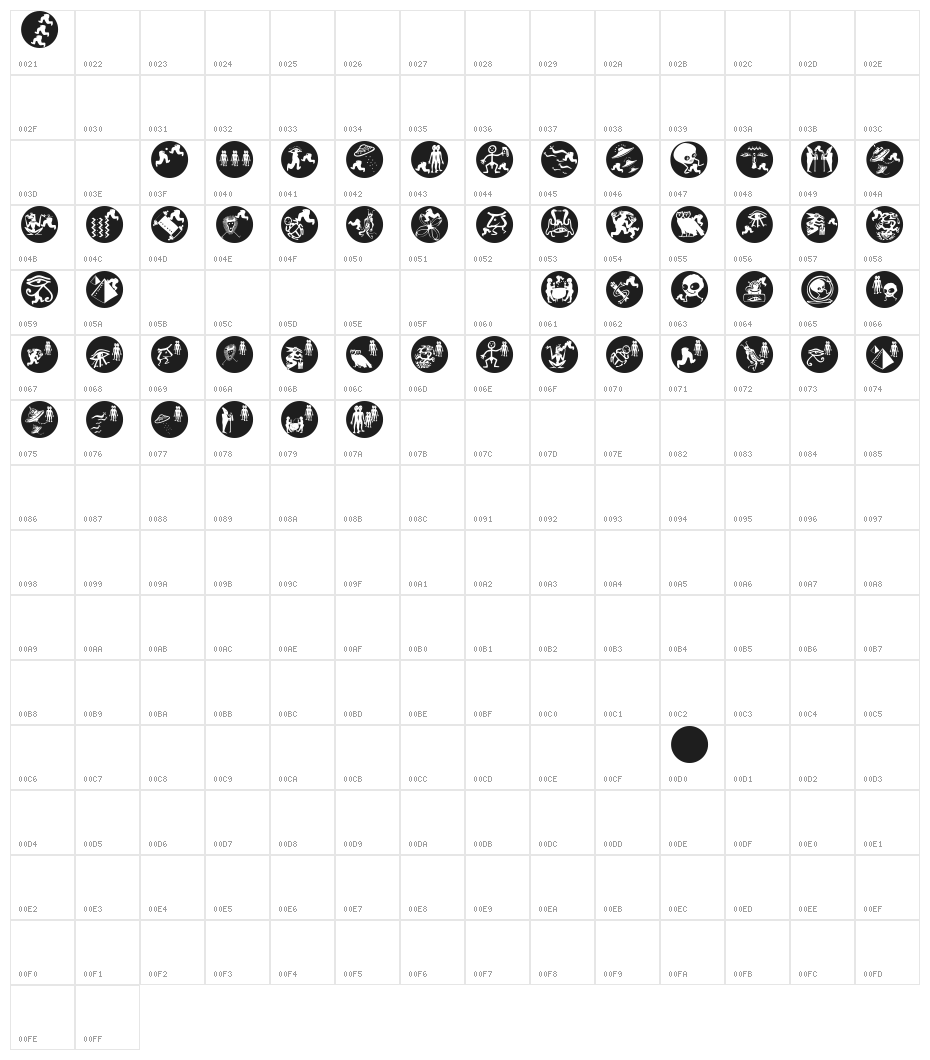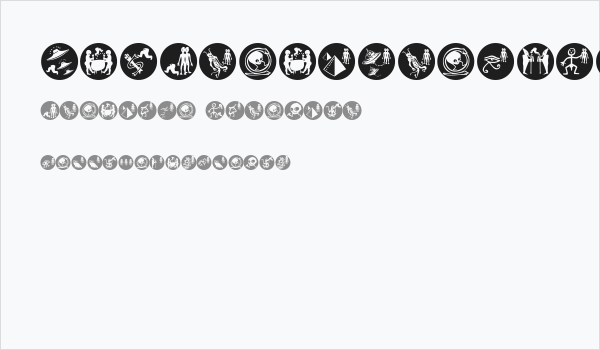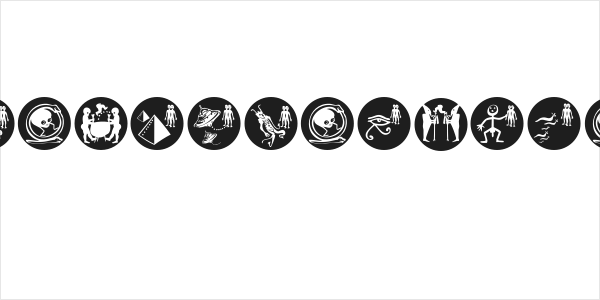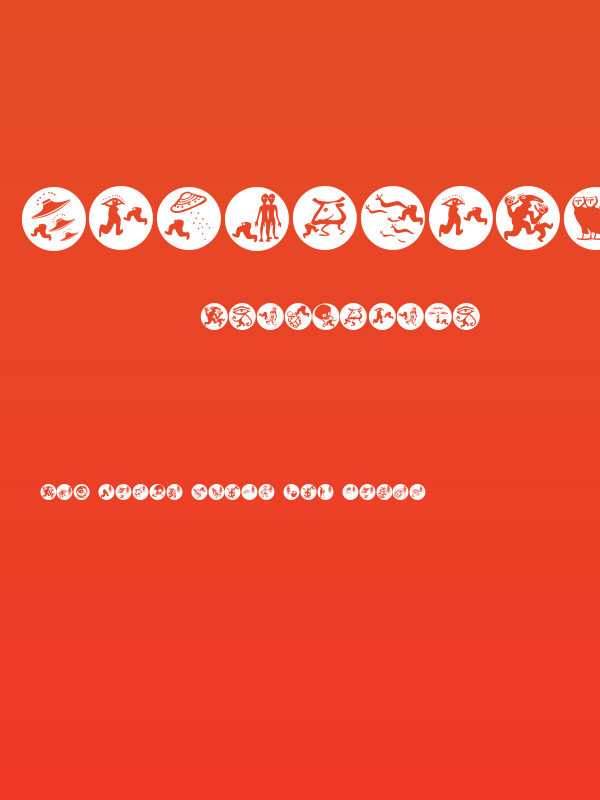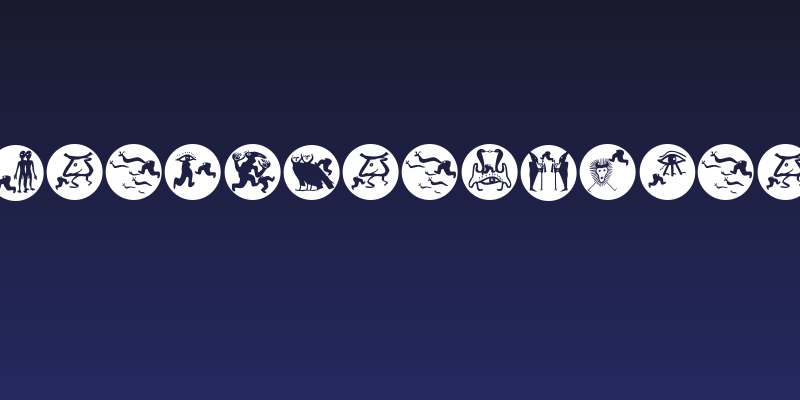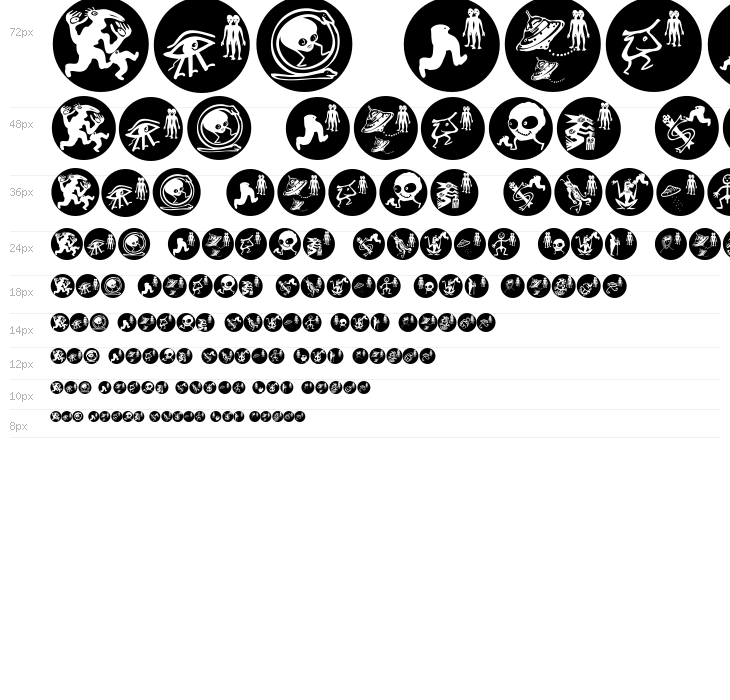
FabCreaturesInverted Font
| Gesamtstil | Decorative, Whimsical, Playful |
| Anwendungsfall | Logos, Posters, Themed Headlines, Educational Materials |
| Vorgeschlagene Projekte | Children’s books, sci-fi posters, party invitations, educational games, themed branding. |